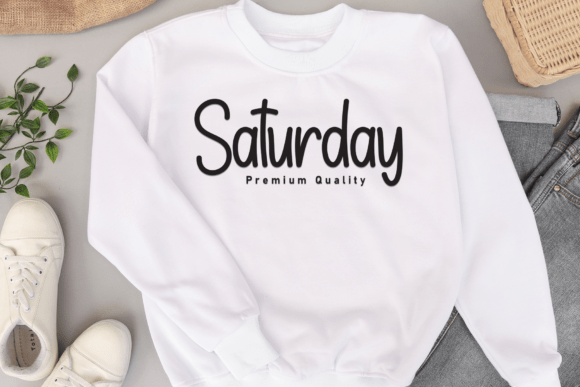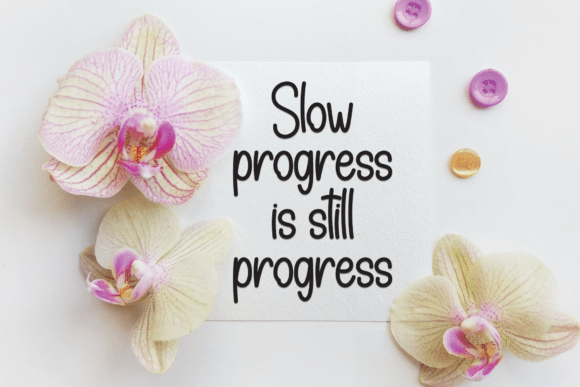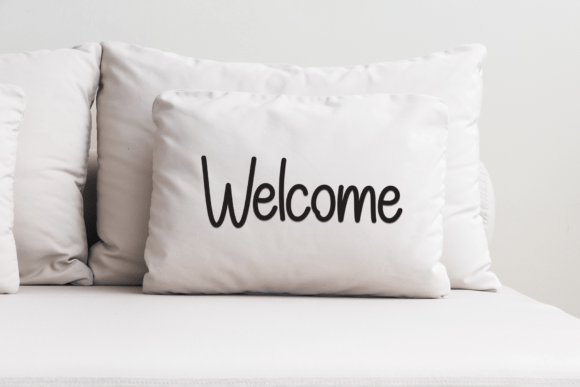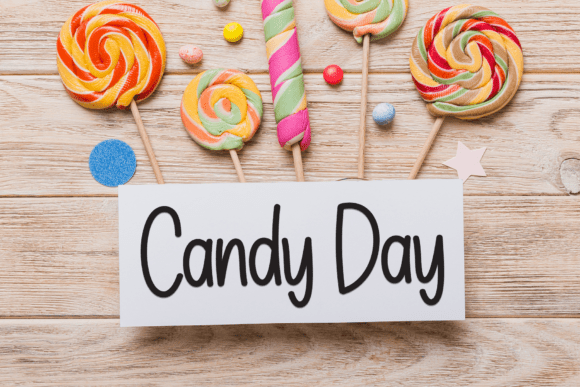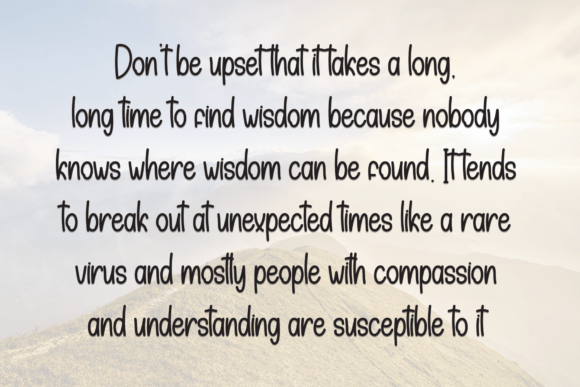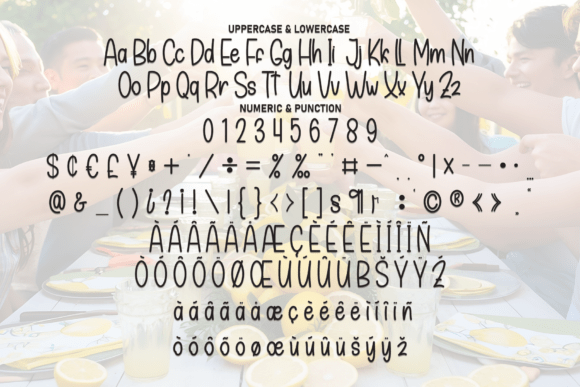
Unveiling the Magic of Party Lemonade Font
Do you remember the moment when you stumbled upon the perfect font for your design project? For me, it was a moment of pure joy, when I discovered the enchanting Party Lemonade Font. Its whimsical charm and effortless elegance instantly captured my heart, and I knew I had to share it with the world.
As a designer, you understand the importance of having the right tools to bring your creative vision to life. That’s why I’m excited to introduce you to the Party Lemonade Font, a high-quality, free download that’s perfect for any project demanding a touch of whimsy and joy. With its transparent background, this design resource is a versatile gem that will add a unique twist to your wedding invitations, greeting cards, or any other creative project.
Key Features of Party Lemonade Font
- High-quality design for creative projects: The Party Lemonade Font is a unique and vibrant font perfect for designing party invitations, banners, and other creative projects.
- Perfect for party-themed designs: The Party Lemonade Font is designed specifically for party-themed designs, making it an ideal choice for creating eye-catching invitations, posters, and other party materials.
- Unique and playful characters: The font features unique and playful characters that will add a touch of whimsy and fun to your designs.
Honest Review: Party Lemonade Font
As a designer, I’m always on the lookout for high-quality fonts that can elevate my creative projects. The Party Lemonade Font caught my eye, and I decided to give it a try.
- ✨ The font has a beautiful, playful design that’s perfect for summer-themed projects or anything that needs a fun, vibrant vibe.
However, I did notice a few limitations ⚠️:
- ⚠️ The font is a bit limited in its style, which might make it less versatile for more serious or professional projects.
- ⚠️ The font doesn’t come with a lot of additional characters or glyphs, which might be a drawback for designers who need a more comprehensive font set.
Overall, I’d say the Party Lemonade Font is a great choice for designers who need a fun, high-quality font for a creative project. While it has its limitations, it’s a free download and can be a great addition to any design arsenal.
The Party Lemonade Font is perfect for any creative project, including birthday invitations, party decorations, and summer-themed designs. Its high-quality design and transparent background make it easy to use in a variety of design applications.
To get the most out of the Party Lemonade Font, be sure to experiment with different font sizes, colors, and combinations. You can also use the font in conjunction with other design elements, such as graphics and images, to create a unique and eye-catching design.